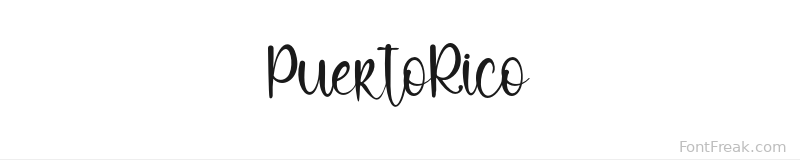
Puerto Rico
About Puerto Rico
Puerto Rico by Kong Font is a captivating handwritten typeface that exudes a playful yet elegant charm. This font features fluid strokes with a medium weight, creating a balance between boldness and readability. The letters have a slight contrast, with some curves and loops adding a whimsical touch that makes it visually appealing. The spacing is generous enough to ensure clarity while maintaining a cohesive flow, making it perfect for various design applications.
This font is particularly suited for a range of creative projects. It shines in wedding invitations, where its romantic flair can enhance the overall aesthetic. Similarly, Puerto Rico works wonderfully for restaurant menus, adding a personal and inviting feel that can entice diners. For those in the entertainment industry, it can be effectively used in movie posters, providing a distinct character that captures attention. Additionally, small business owners can utilize this font in branding materials, such as logos and promotional materials, to convey a friendly and approachable image. Content creators will also find it fitting for social media graphics, where engaging typography can make a strong impact.
Targeting graphic designers, small business owners, and content creators, Puerto Rico offers versatility and uniqueness that can elevate any project. Its distinct handwritten style allows for personalization and creativity, catering to those looking to make a statement.